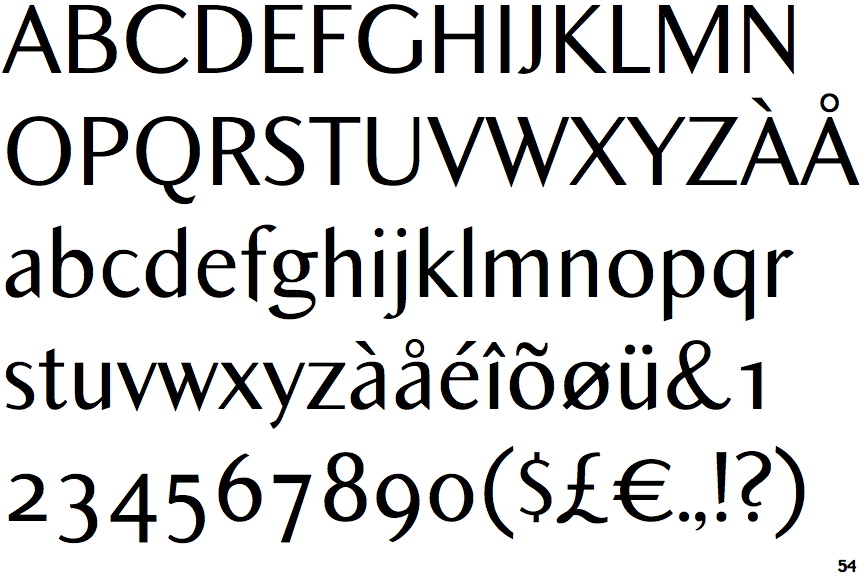
The font includes multilingual letters, numbers and punctuation. Since then, t26 has become one of the largest independent sources for new and innovative fonts, with a dedication to the broader integration of typography. 100 free fonts alternatives to minerva modern.
Font, font family, grotesque, otf, roman, sans serif, set suited to your project, and it does not matter whether it is a printed poster or picture monitor. ☞), 284 characters in total. It features a geometric design and has some alternate letters which can be toggled via caps lock.